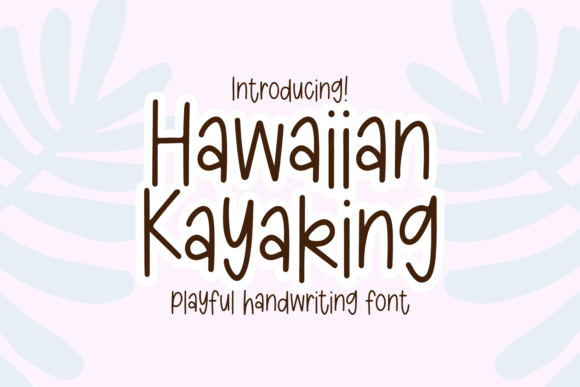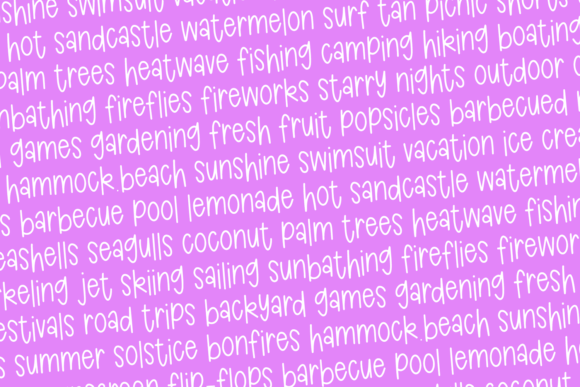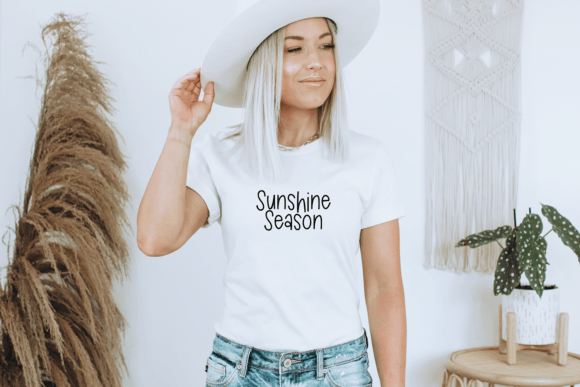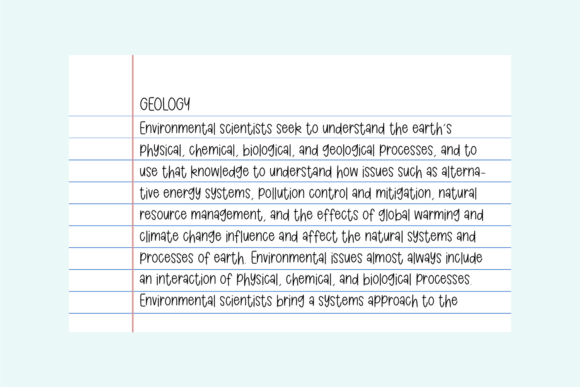
Hawaiian Kayaking Font
About the Hawaiian Kayaking Font
Step up your design game with Hawaiian Kayaking Font, a font that exudes confidence and style. Hawaiian Kayaking is a sweet and friendly handwritten font. Its natural and unique style makes it incredibly fitting to a large pool of designs. The only limit is your imagination!
Its friendly, casual style makes it ideal for projects needing a touch of playful approachability, such as children’s books, branding for summer-themed businesses (ice cream shops, surf brands), or social media graphics. It would also work well on packaging for light and fun products. However, Hawaiian Kayaking is less suitable for body text or applications requiring high readability, like websites or lengthy documents.
Consider pairing it with a clean sans-serif like Open Sans for a balanced contrast, or a playful script font like Pacifico to enhance the handwritten feel. For a more sophisticated look, a light, neutral serif like Lato could provide a refined counterpoint.
The font’s overall personality is undeniably cheerful and informal, projecting a sense of carefree summer fun.
Hawaiian Kayaking Font Usage Examples
Hawaiian Kayaking Font Example